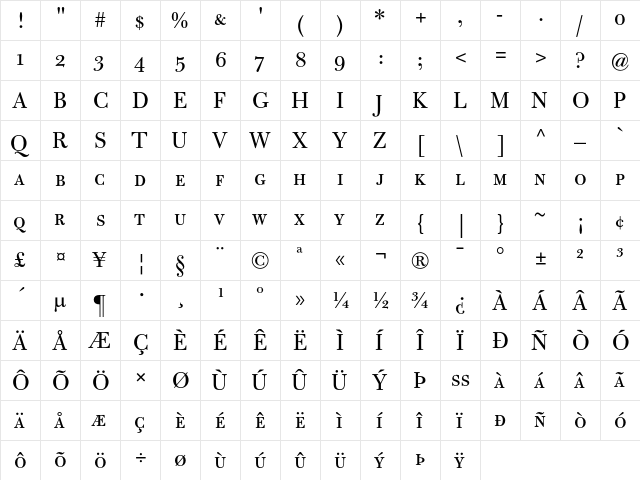
Bulmer MT Small Caps & OldStyle Figures Font Preview
Bulmer MT Small Caps & OldStyle Figures
Design Context for Bulmer MT Typeface
Bulmer MT carries the refined structure of traditional serif typography, with bracketed terminals and considered proportions that communicate credibility and craft.
Pro Tip: Use Bulmer MT for editorial body copy and considered headline work. Pair with a neutral sans for UI elements or captions to create a classic hierarchy.